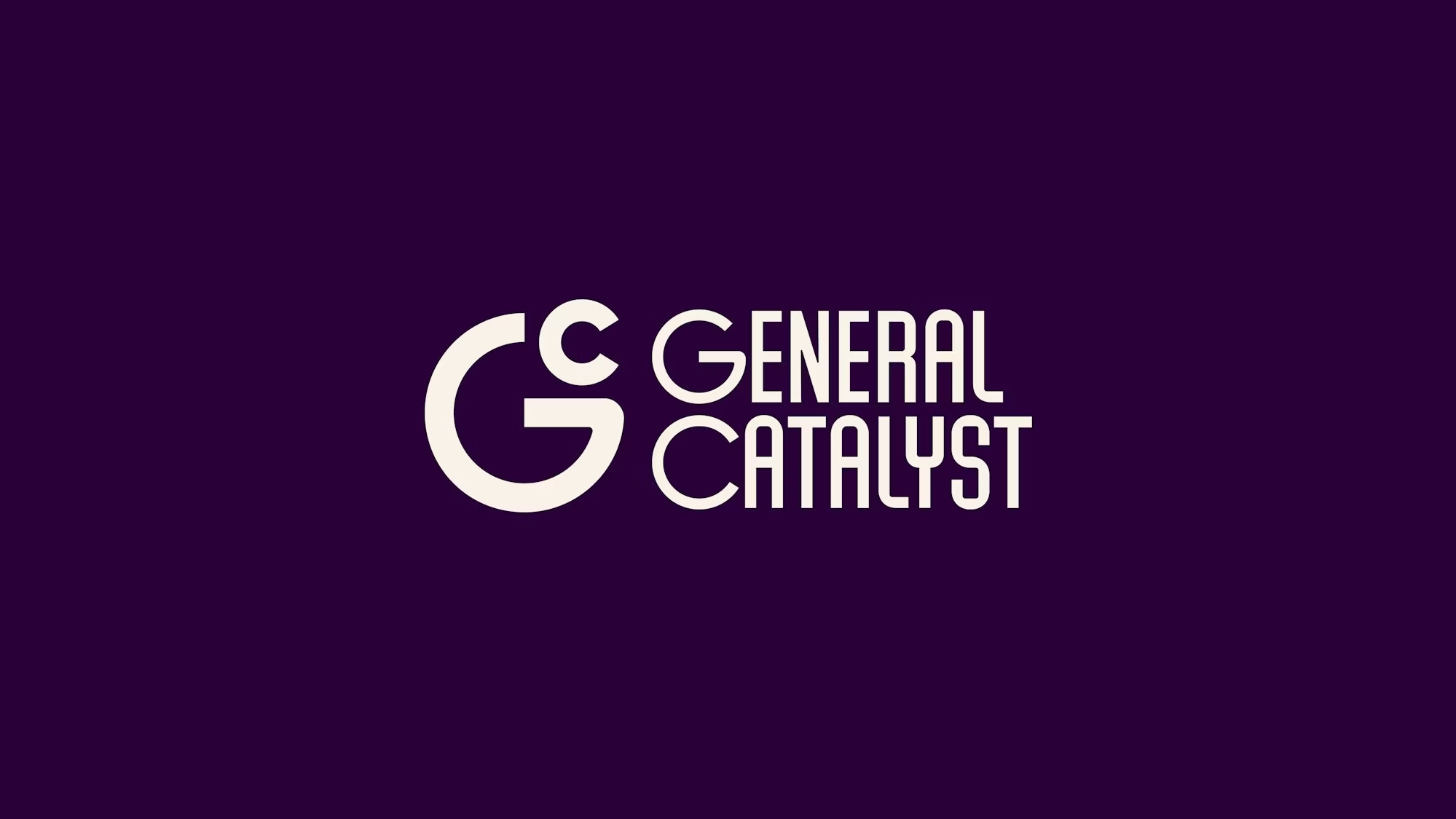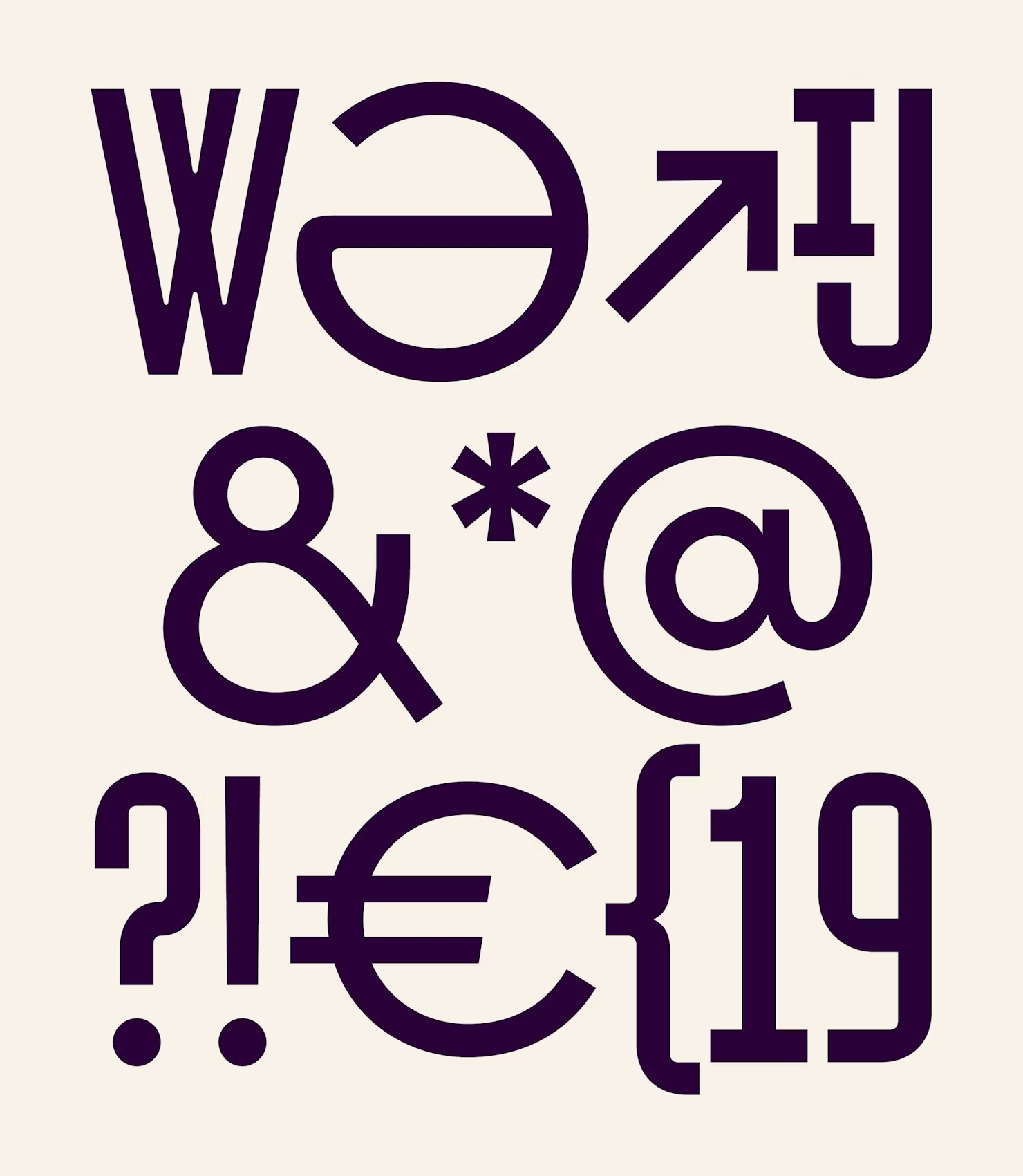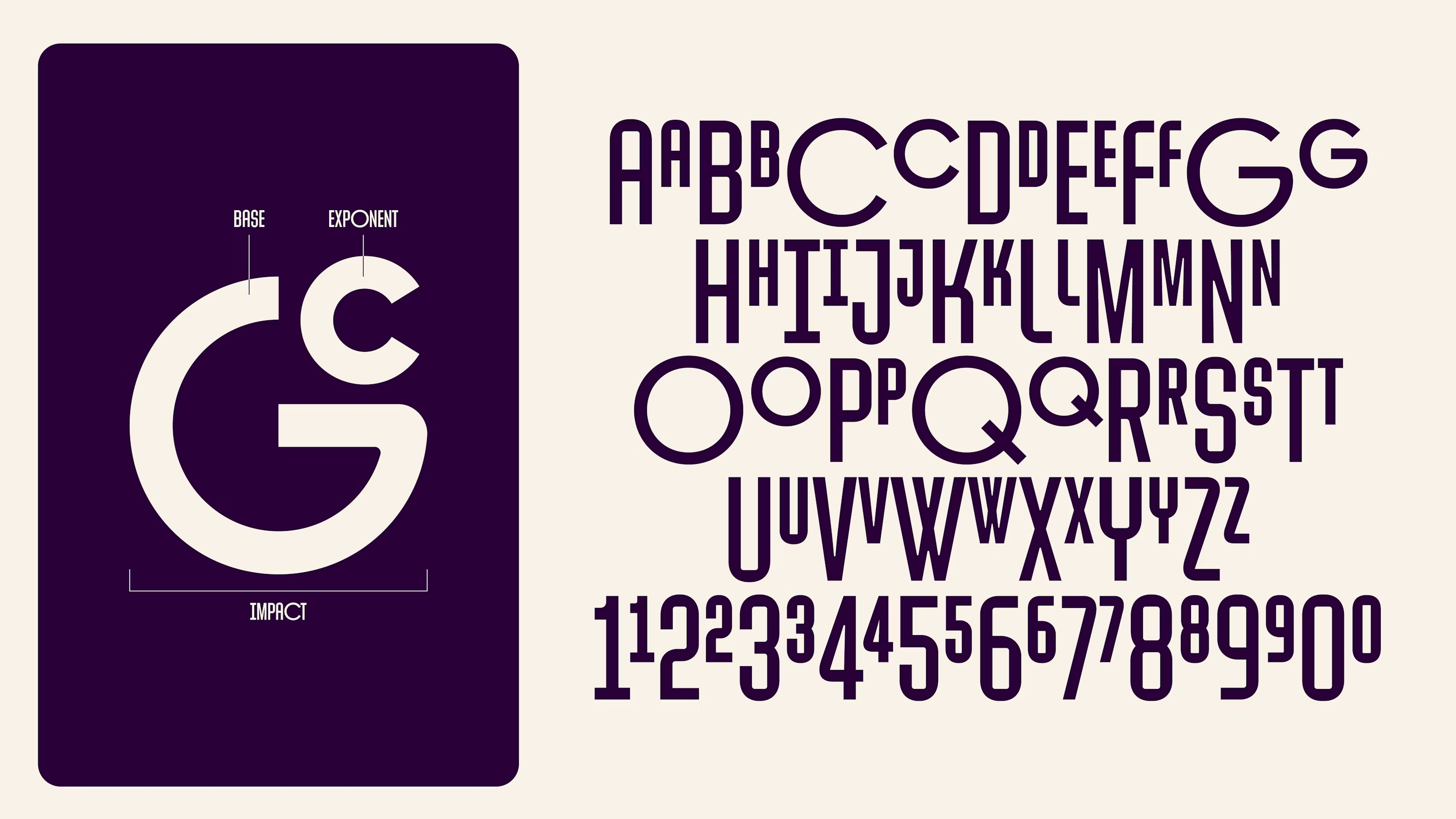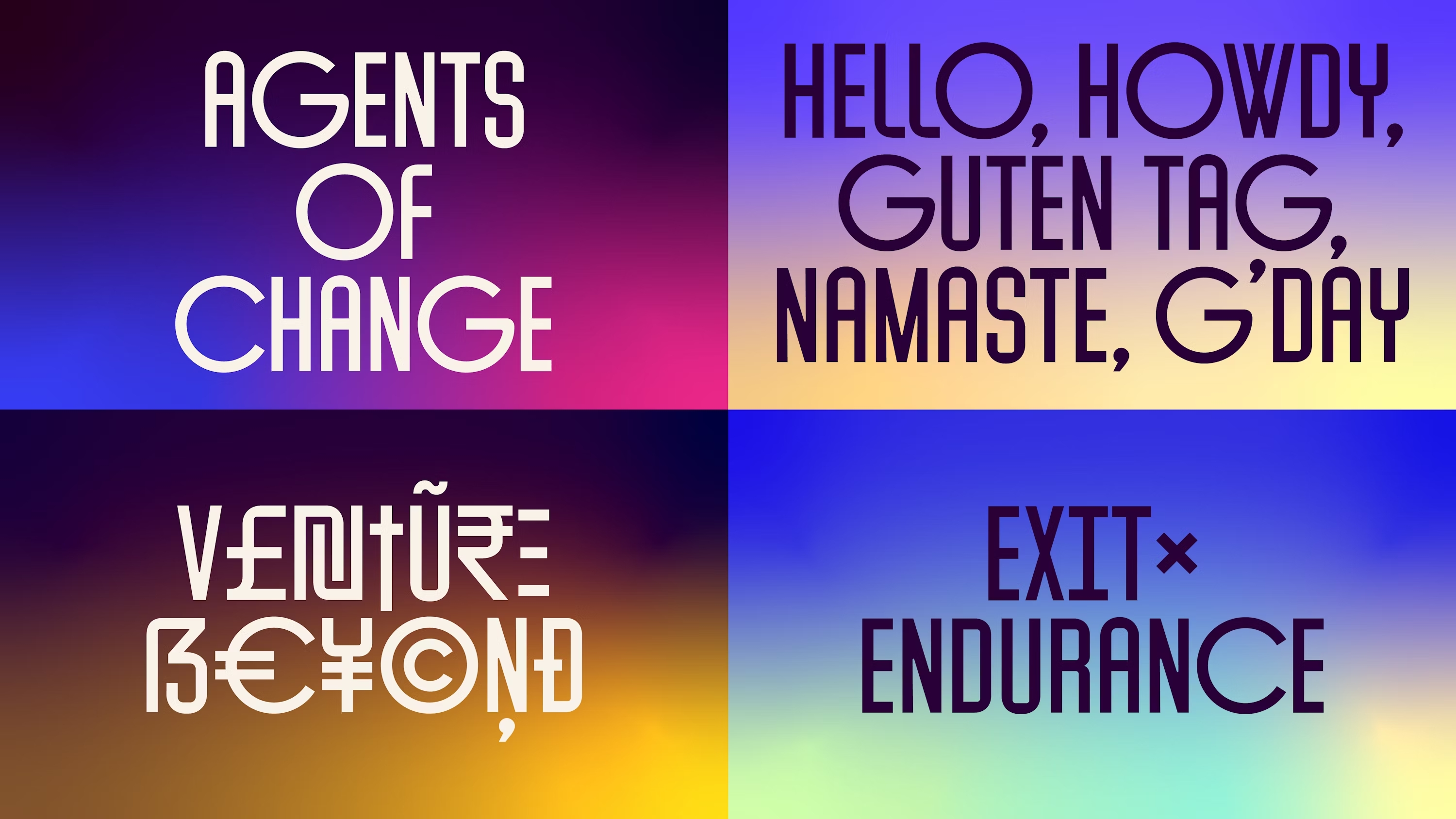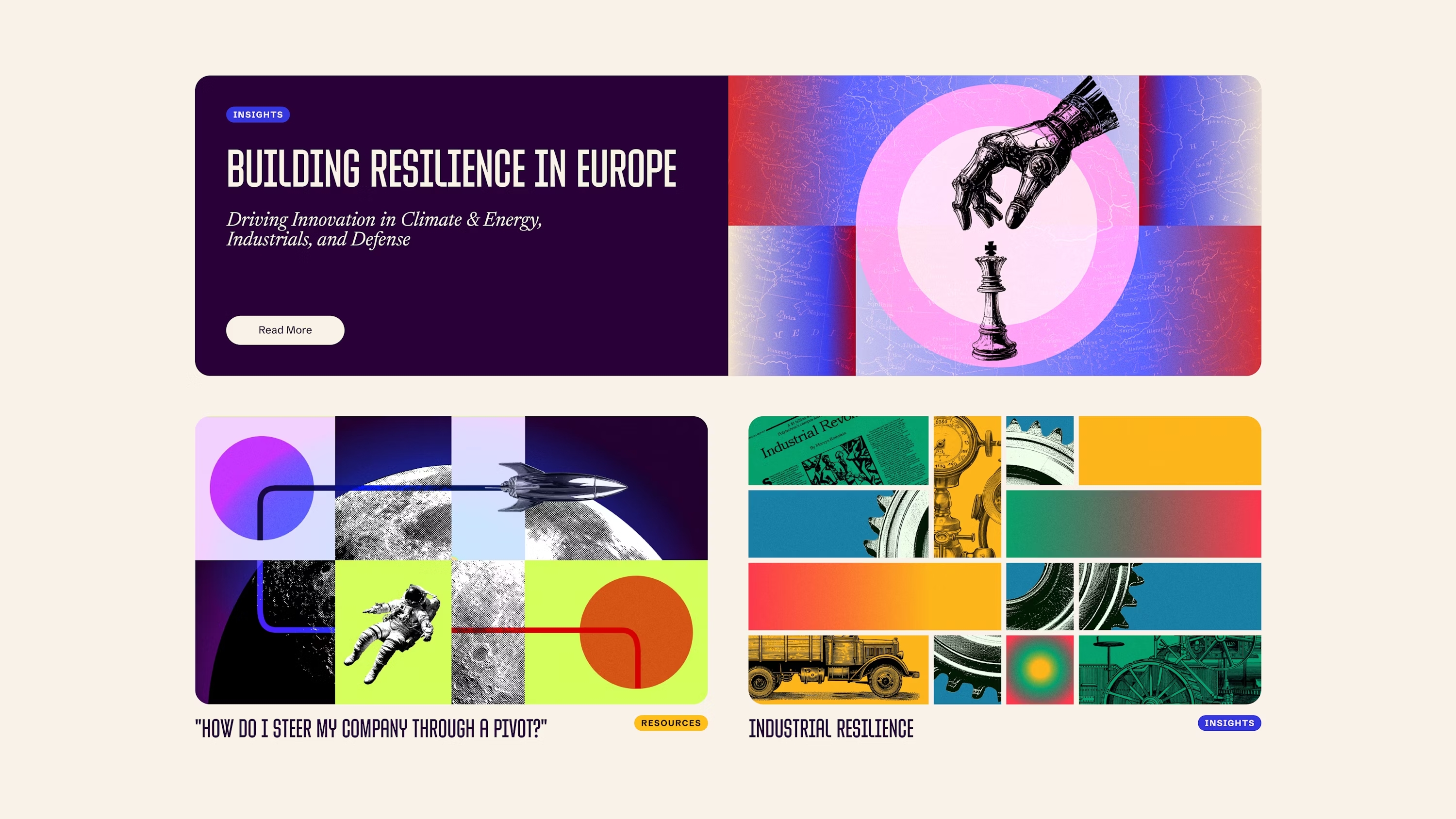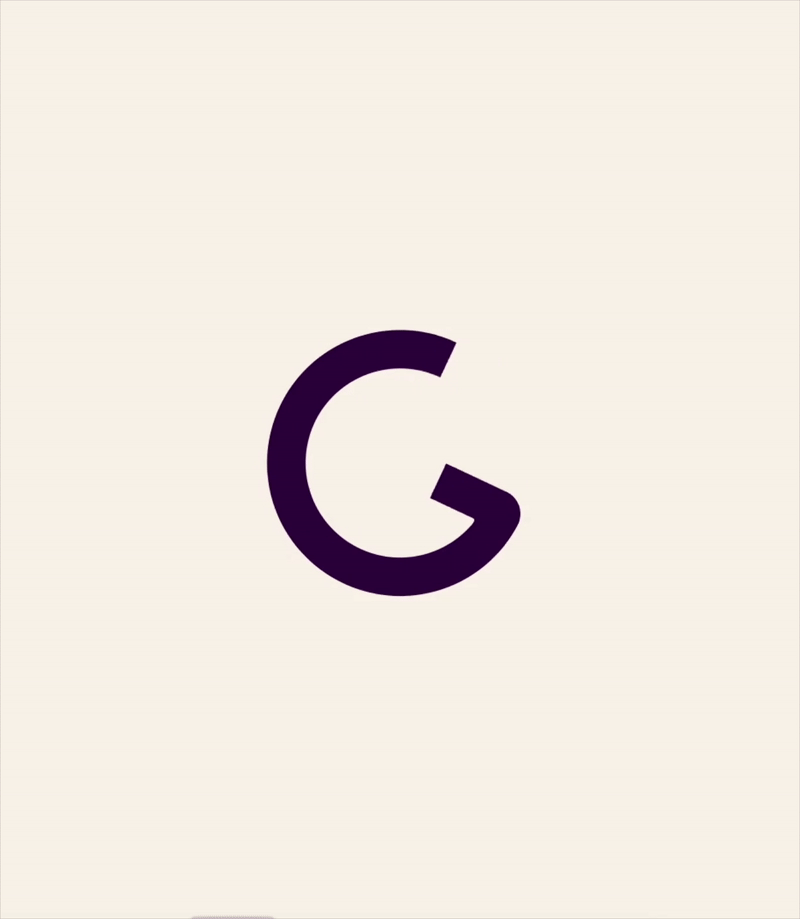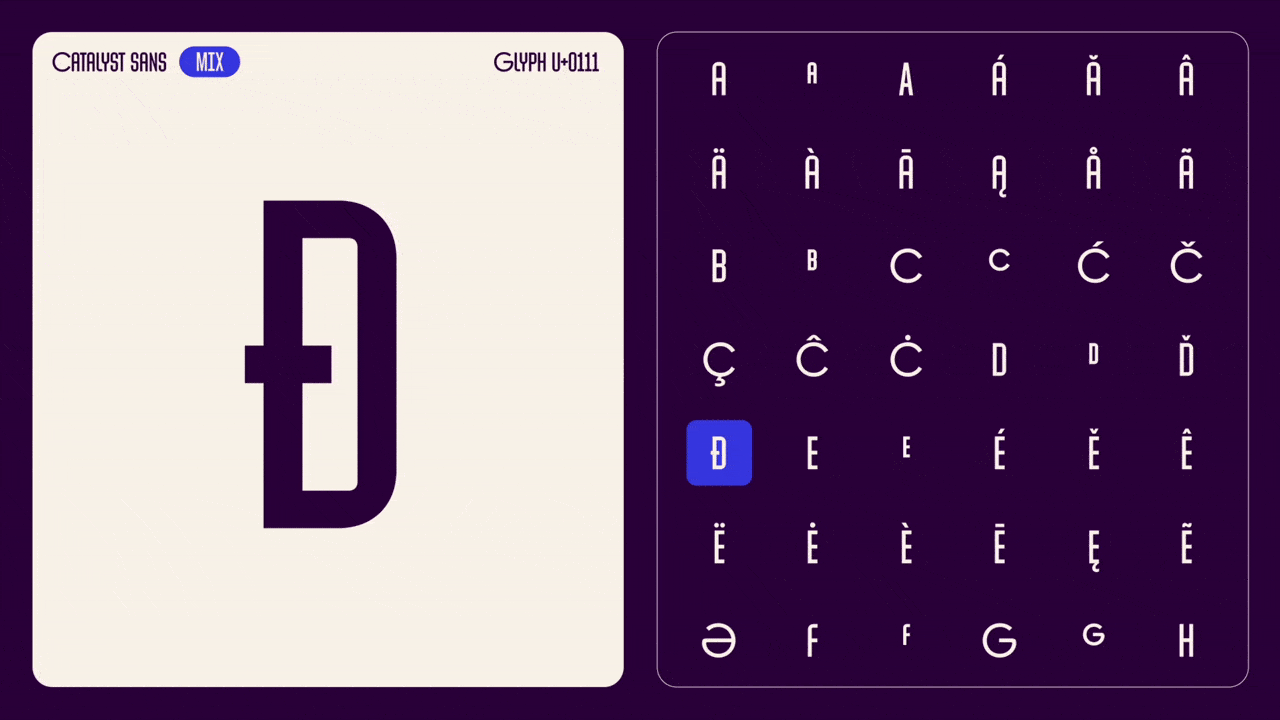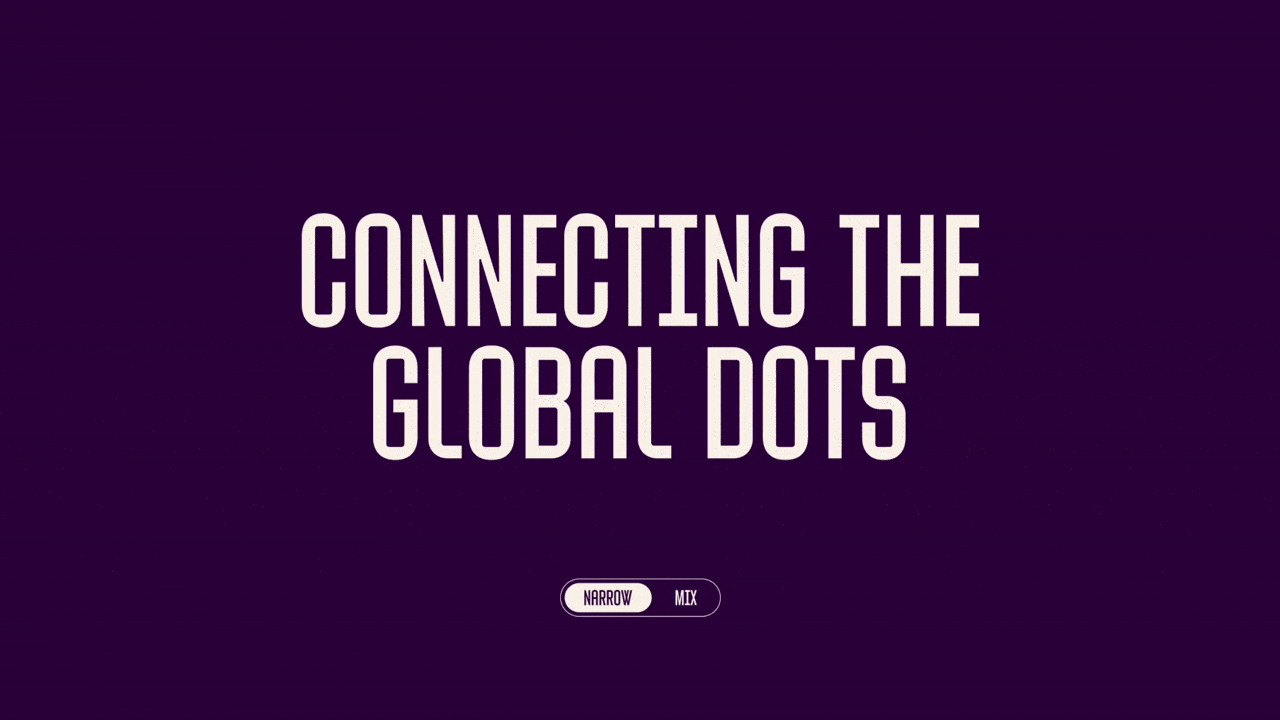
Catalyst Sans: case study
Collaborated with Pentagram on the design and development of a custom typeface for General Catalyst, one of the world’s leading venture capital firms.
“General Catalyst approached Pentagram as they were expanding their presence in Europe and India and focusing on fundamental problems in critical industries like healthcare, industrials, energy, and defense. They brought Venture Beyond to life with a unified visual and verbal identity system. At its core is a reimagined logo – based on an exponent – and custom typeface, Catalyst Sans, designed to combine dynamism and clarity”.
— Pentagram
Pentagram invited us to help develop Catalyst Sans, a custom font they had already designed with a strong foundation. Working closely with their team, we refined, expanded, and engineered it into a robust, professional-grade type family.
The original design featured a mix of narrow and wide letterforms. We split the family into two primary masters: Narrow and Extended, and developed a third Mix style that blended both rhythms into a cohesive voice.
Across all three styles, we expanded the character set with over 200 additional glyphs, enabling support for more than 160 Latin-based languages. We also included a wide range of functional glyphs: diacritics, alternates, mathematical symbols, superiors, inferiors, arrows, and circled numbers. Given the client's focus on global finance and innovation, we designed over 20 monetary and crypto currency symbols.
To ensure seamless performance across brand, web, UI, and editorial applications, we completed the project with font engineering, kerning, hinting, and production work for both screen and print environments.